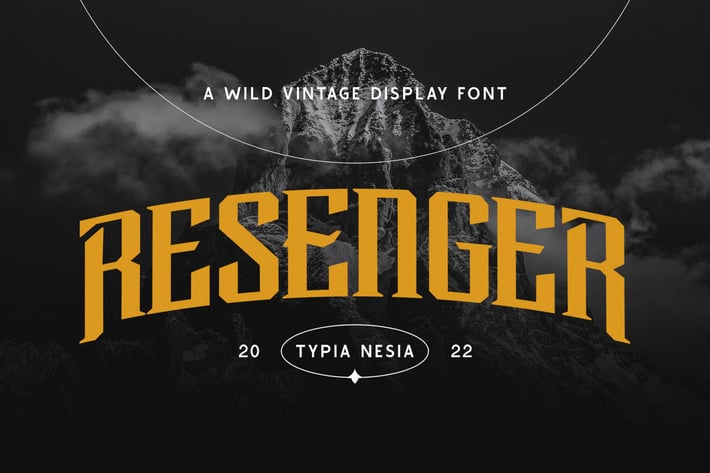
Resenger - Vintage Wild Adventure Display Font
Resenger - wild vintage adventure camp - mountain hiking condensed display font
Suitable for any design needs : logo, branding, modern advertising design, vintage garage design, adventure / mountain hiking brand, hardcore music, animation or movie, logos, retro summer poster quote, book / novel cover Title, editorial design, website / blog, card, and more.